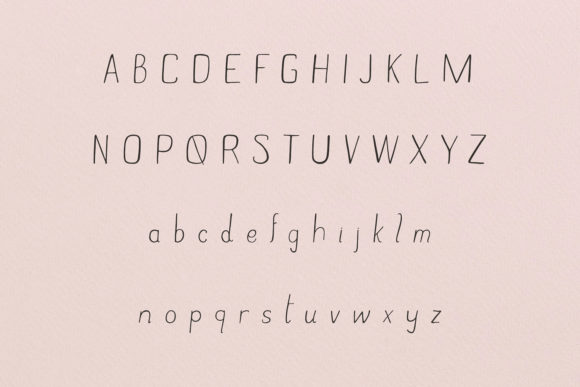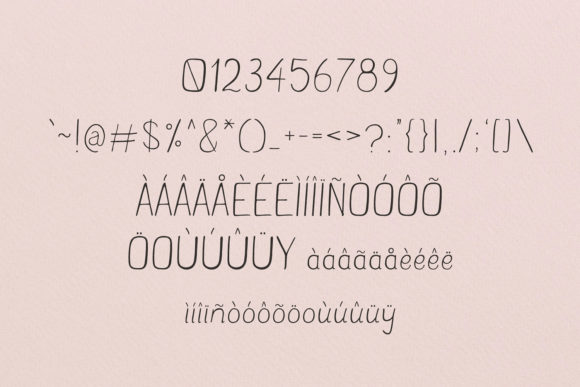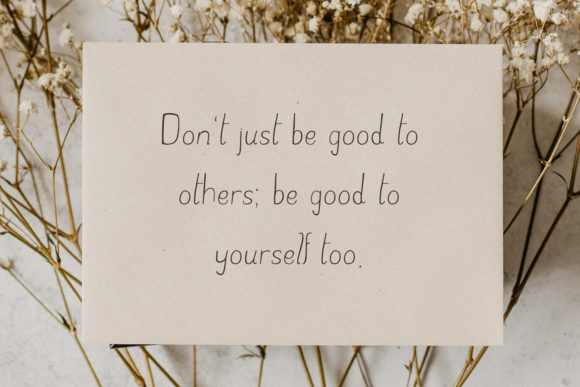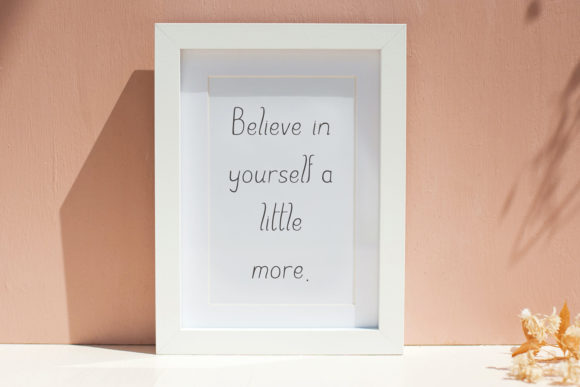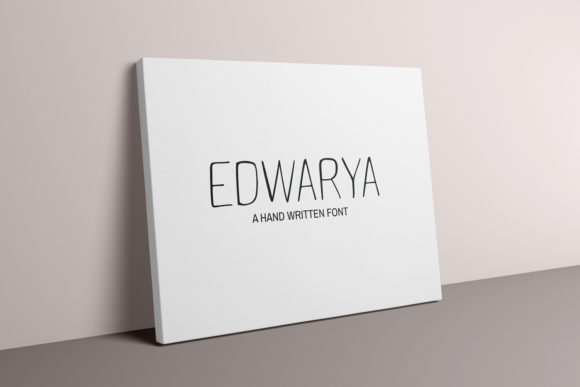
Introducing Edwarya Font: The Perfect Handmade Companion for Your Design Projects
In the world of design, typography plays a crucial role in conveying the message and tone of a project. A well-chosen font can elevate your design, making it more engaging, readable, and memorable. If you’re a designer or crafter looking for a font that adds a personal touch to your work, look no further than Edwarya Font. This delightful, handmade font is designed to bring a touch of warmth and personality to your projects, making it an excellent choice for a wide range of applications.
What Makes Edwarya Font Special?
Edwarya Font is a cute, lovely, and versatile handmade font that is sure to capture the hearts of designers and crafters alike. Here are some of its key features:
- Complete Basic Glyphs: Edwarya Font contains complete basic glyphs, ensuring that you have all the characters you need to create beautiful and readable text.
- Multilingual Support: With multilingual support, Edwarya Font is perfect for projects that require text in multiple languages, making it an excellent choice for global brands and designers who work with international clients.
- Handmade with Love: Edwarya Font is a handmade font, crafted with love and care to ensure that it has a unique, personal touch that sets it apart from more generic fonts.
- Versatile: Whether you’re working on a digital project, such as a website or social media graphics, or a print project, like brochures or posters, Edwarya Font is the perfect choice.
Edwarya Font’s versatility makes it an excellent choice for a wide range of projects, including:
- Digital Projects: Use Edwarya Font to add a personal touch to your website, social media graphics, or email newsletters.
- Print Projects: Edwarya Font is perfect for print projects, such as brochures, posters, flyers, and business cards.
- Crafting Projects: If you’re a crafter, Edwarya Font is a great choice for your handmade projects, such as card making, scrapbooking, or journaling.
Why Choose Edwarya Font?
With so many fonts available, why choose Edwarya Font? Here are just a few reasons:
- Unique and Personal: Edwarya Font has a unique, handmade touch that sets it apart from more generic fonts.
- Easy to Read: Edwarya Font is designed to be easy to read, making it perfect for body text or longer blocks of text.
- Highly Versatile: Edwarya Font can be used for a wide range of projects, from digital to print.
- Multilingual Support: With multilingual support, Edwarya Font is perfect for global brands and designers who work with international clients.
In conclusion, Edwarya Font is a delightful, handmade font that is perfect for designers and crafters looking to add a personal touch to their projects. With its complete basic glyphs, multilingual support, and versatility, Edwarya Font is an excellent choice for a wide range of applications. Whether you’re working on a digital project, print project, or crafting project, Edwarya Font is sure to bring a touch of warmth and personality to your work.